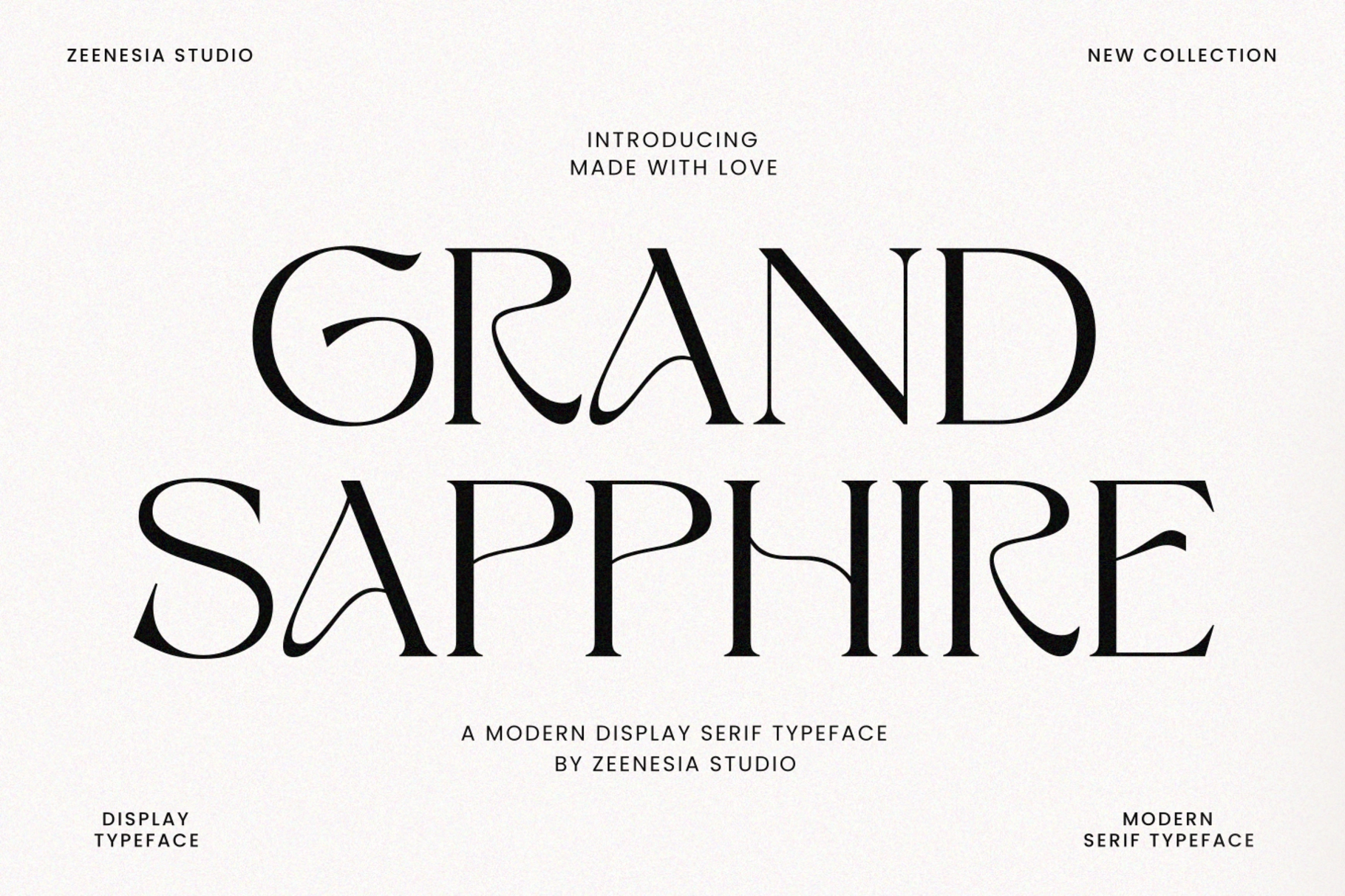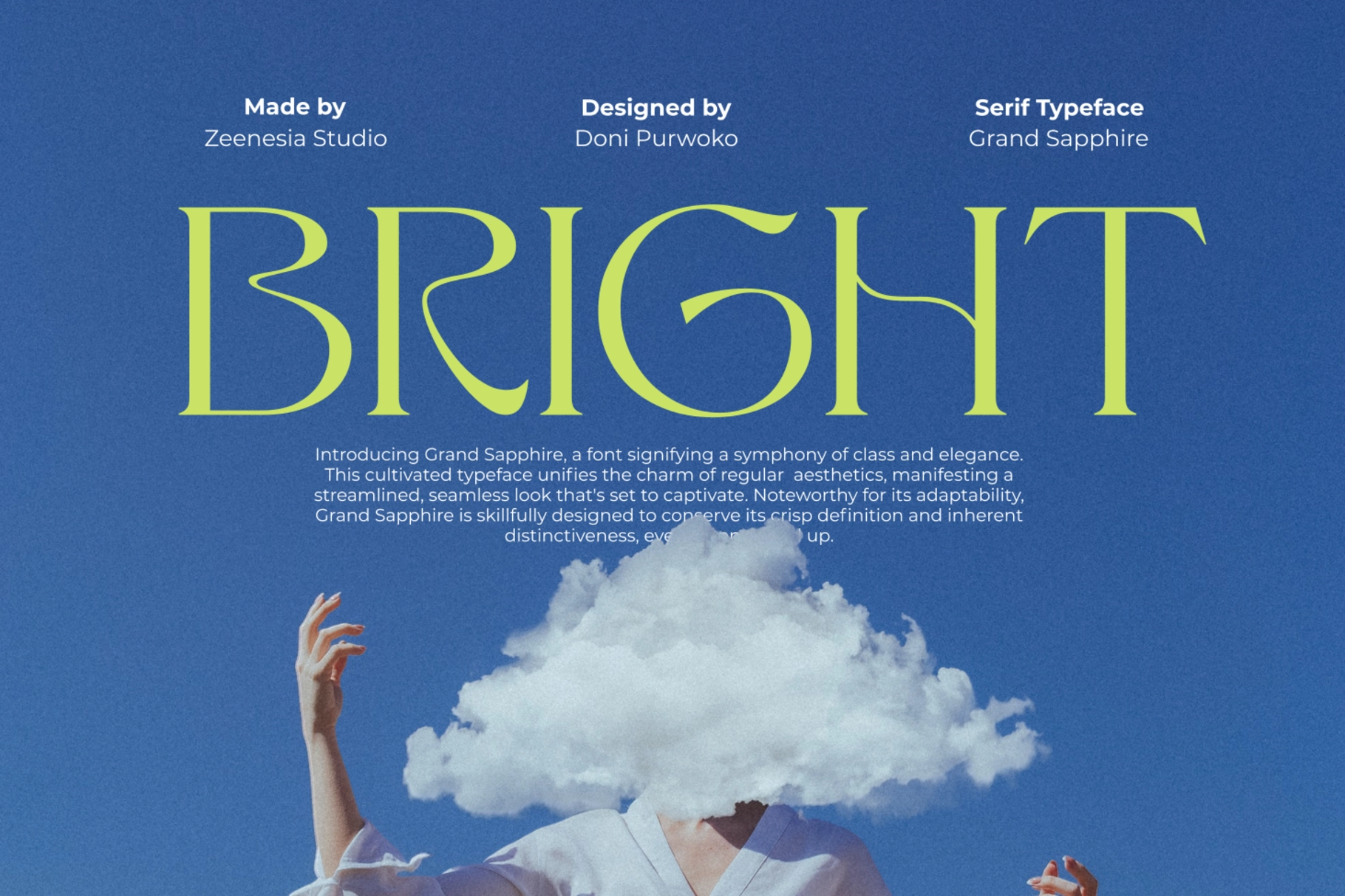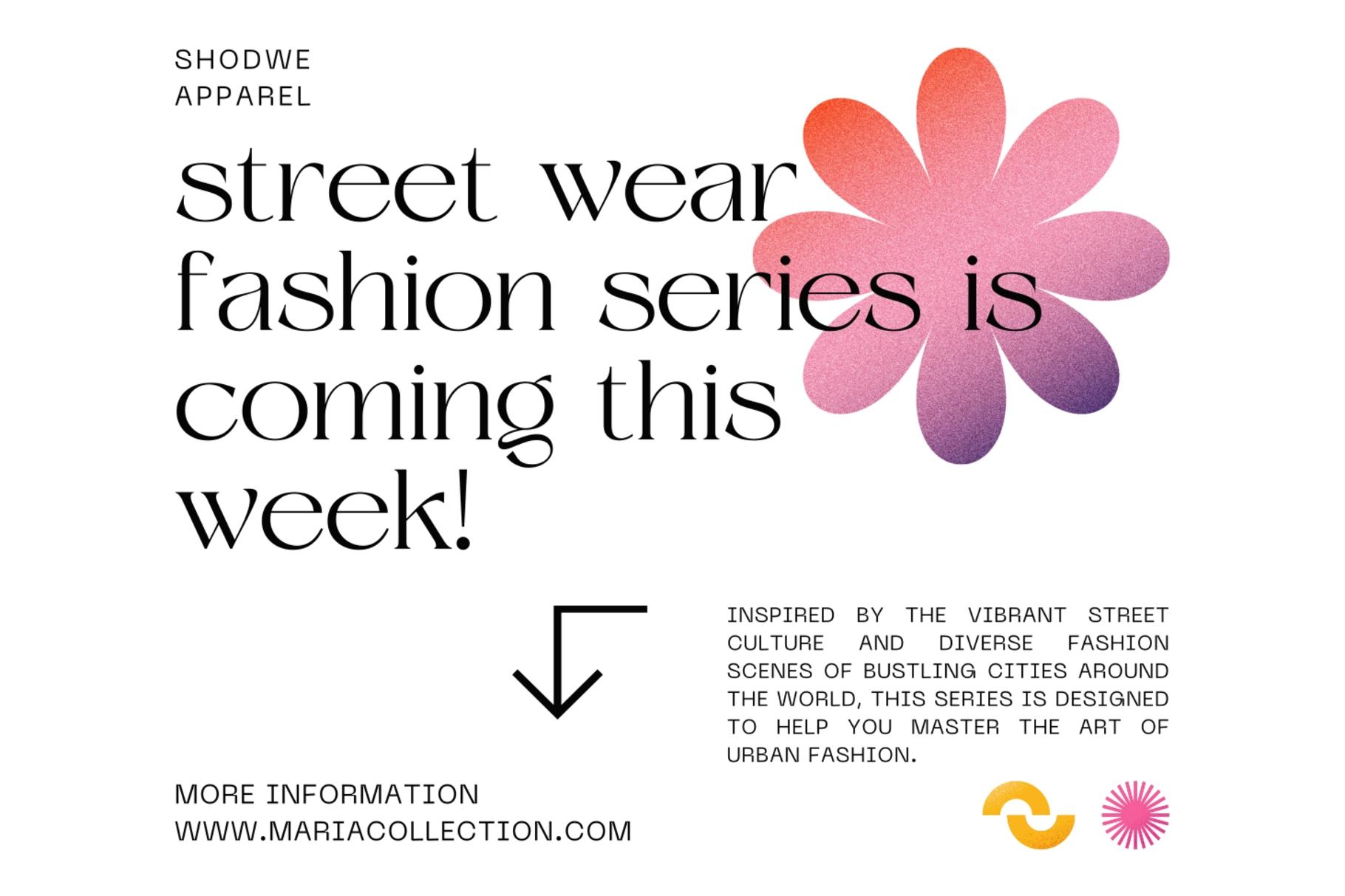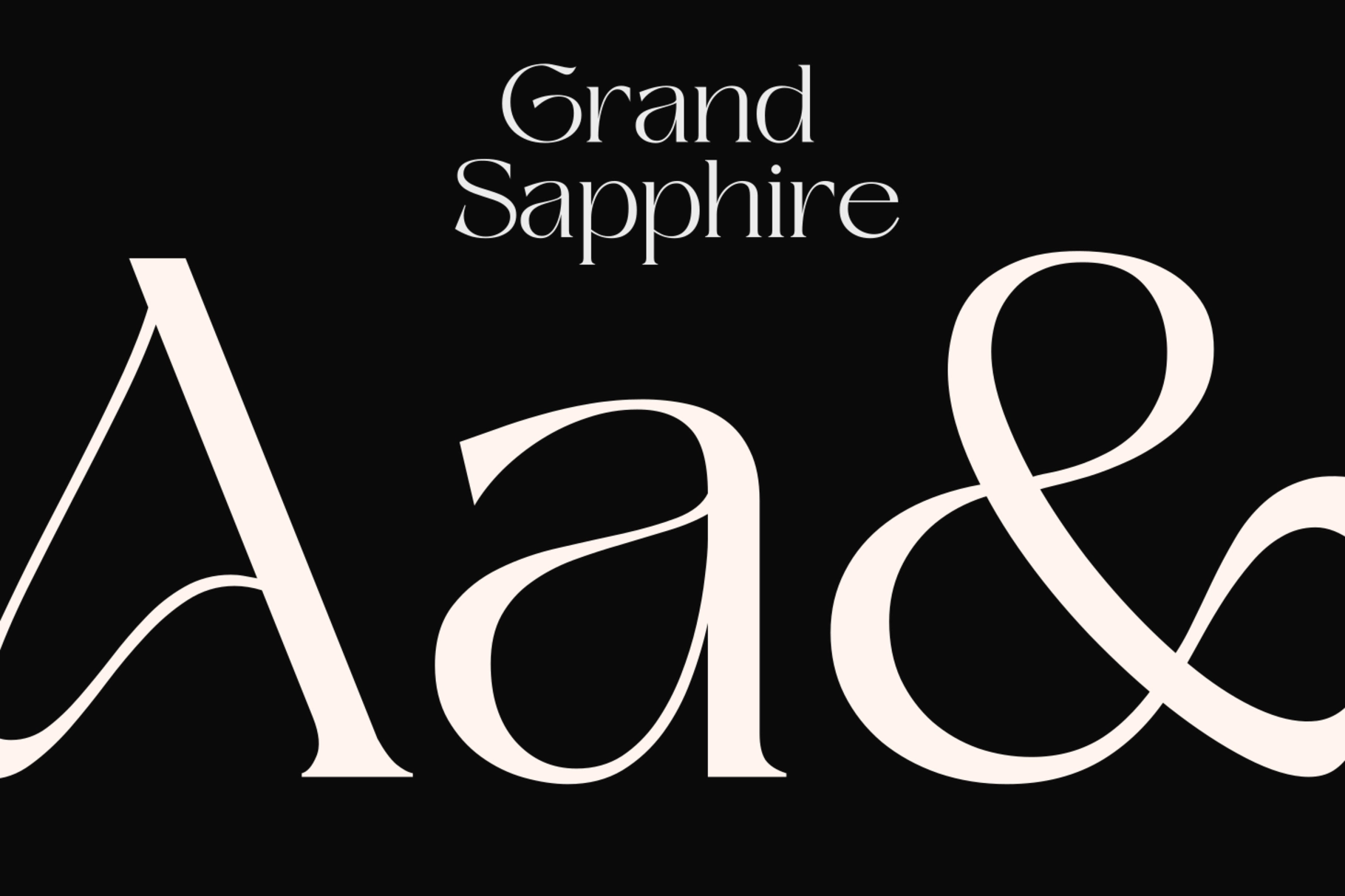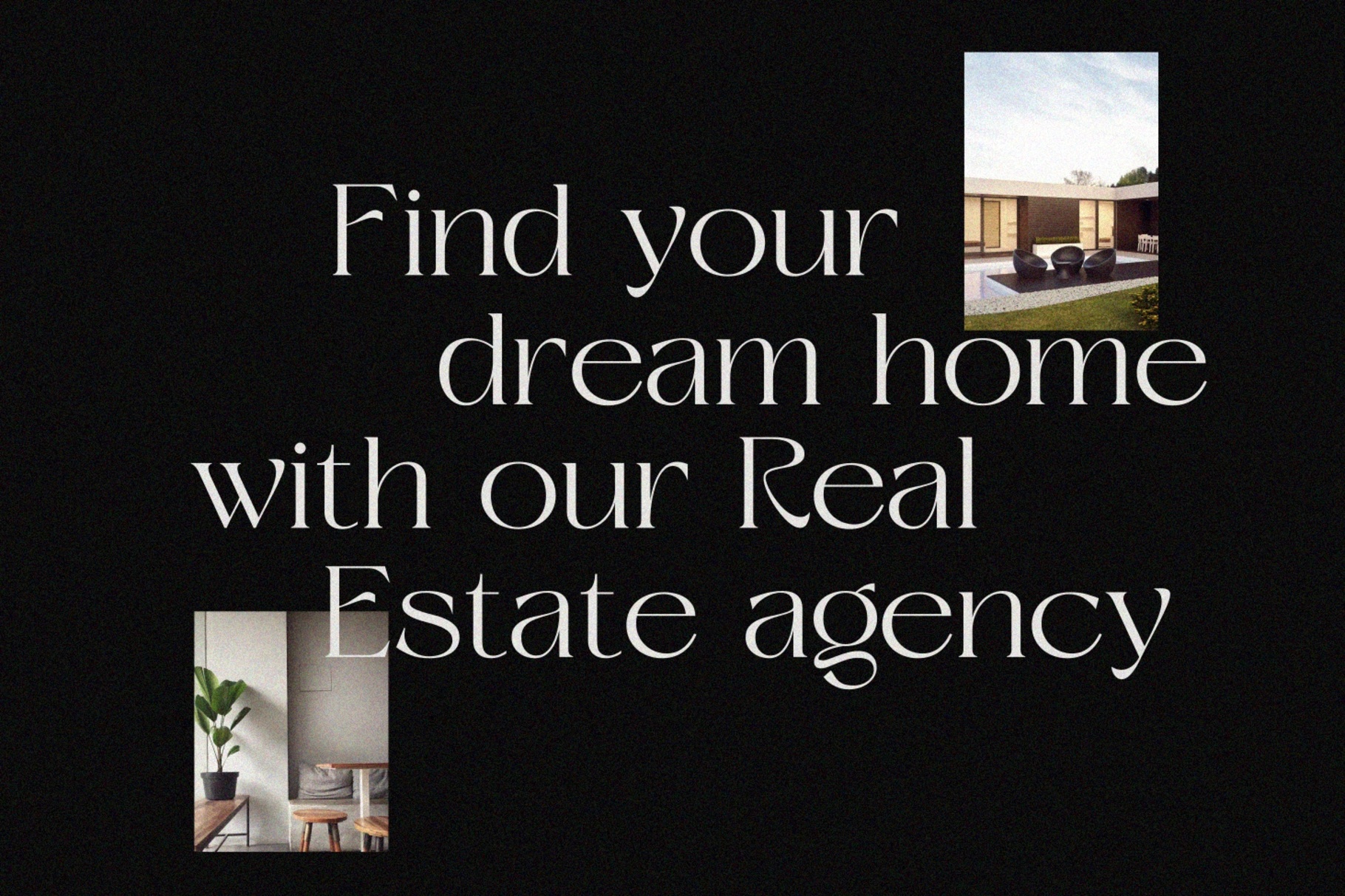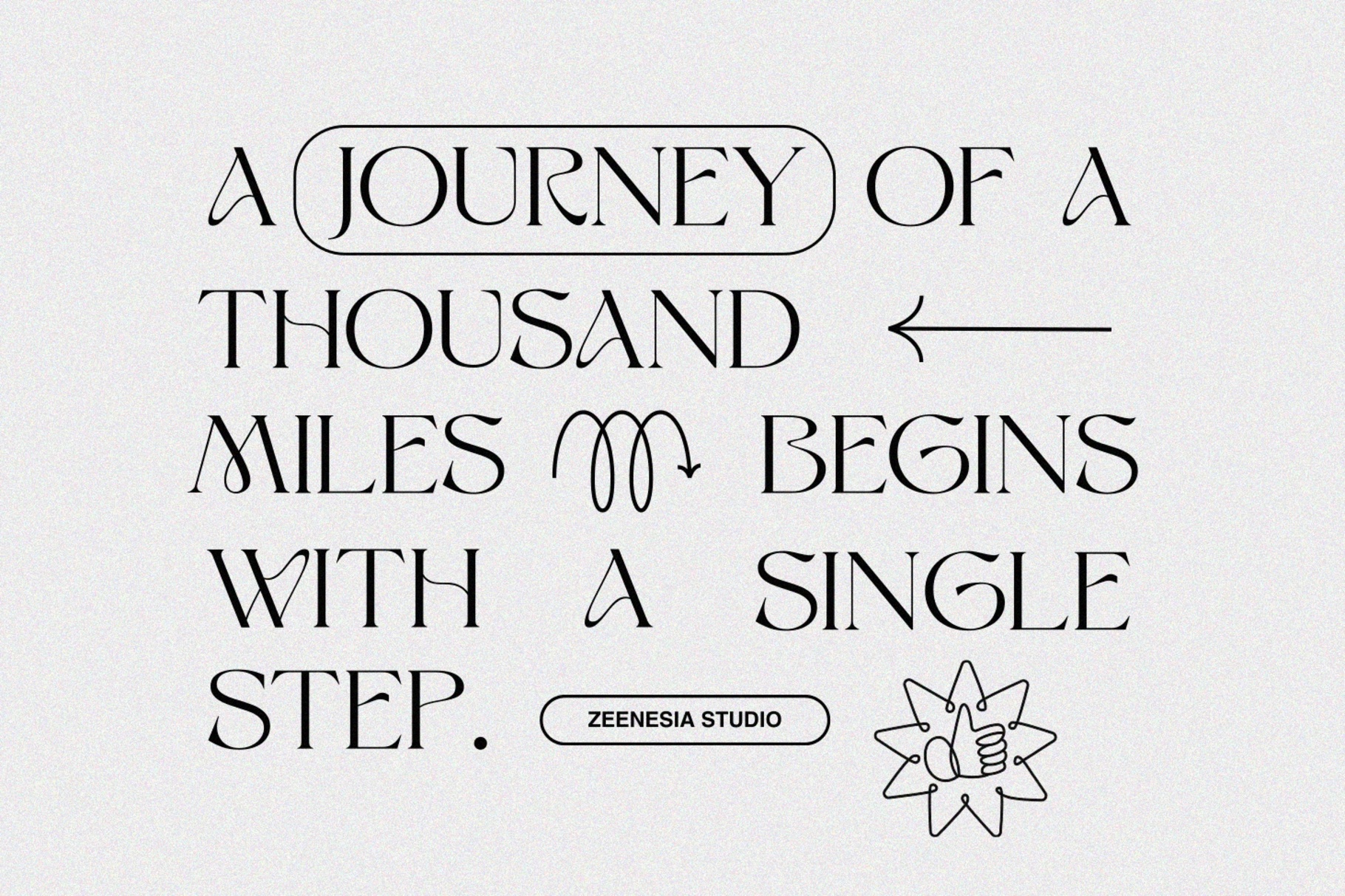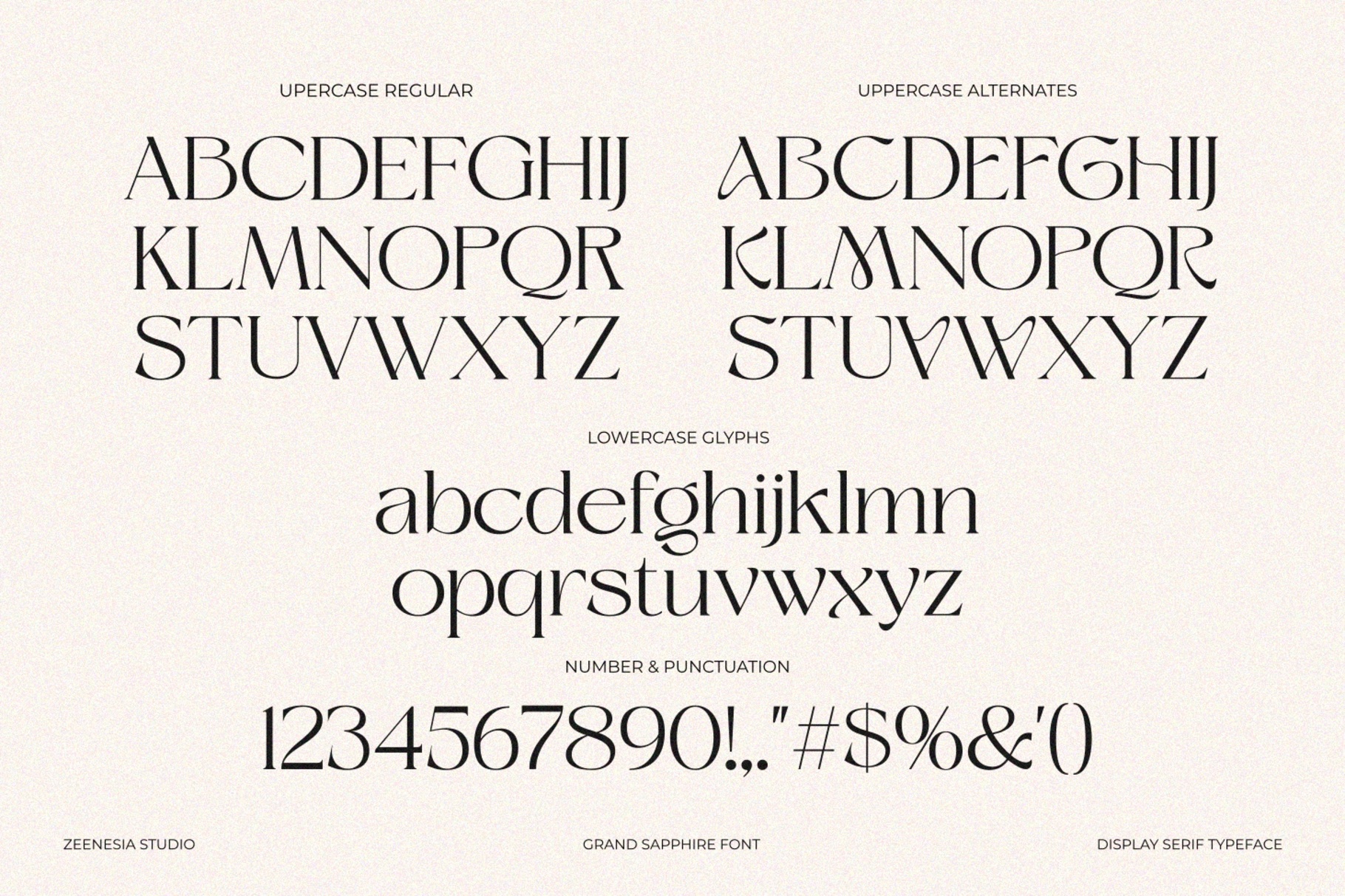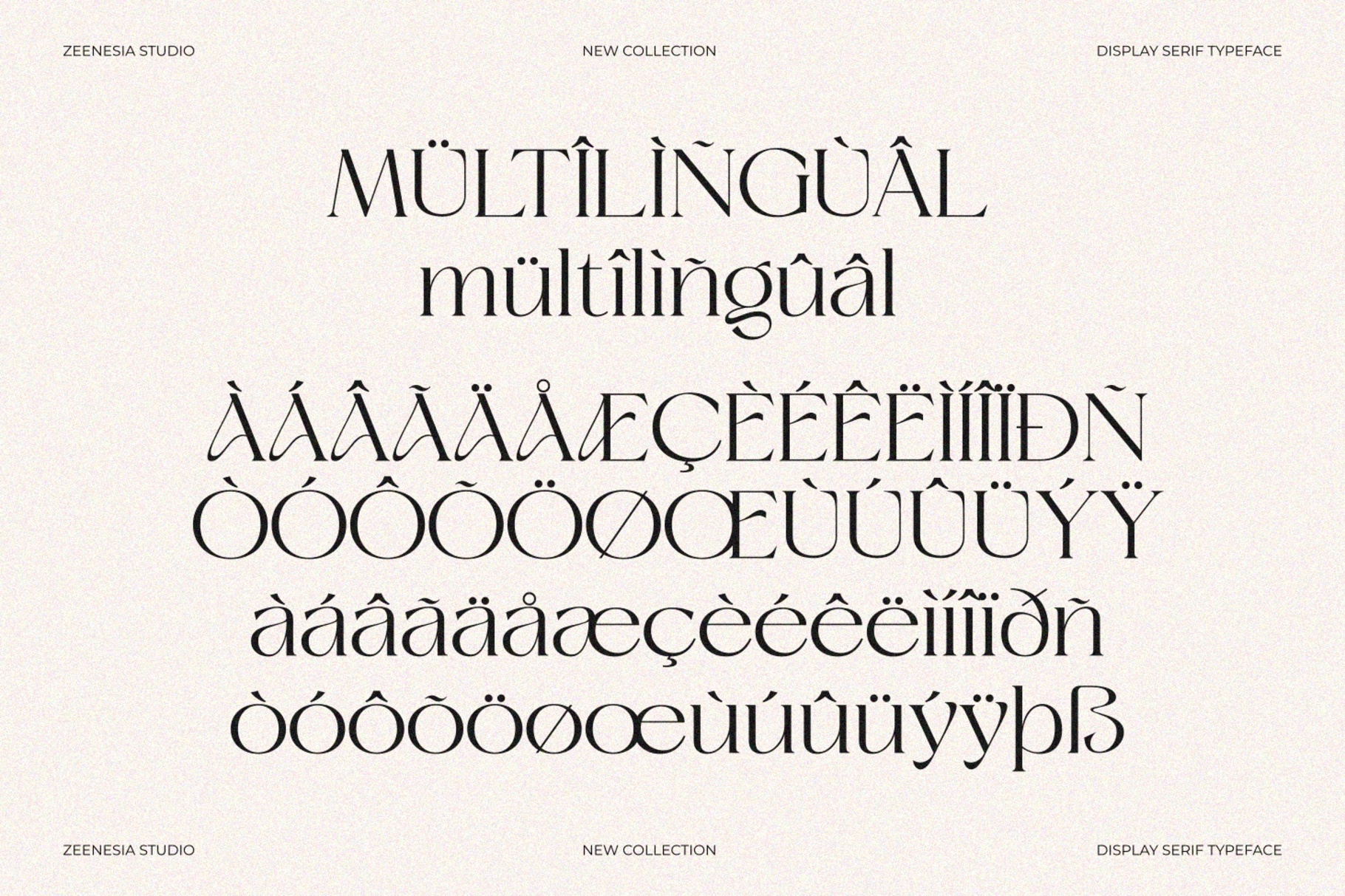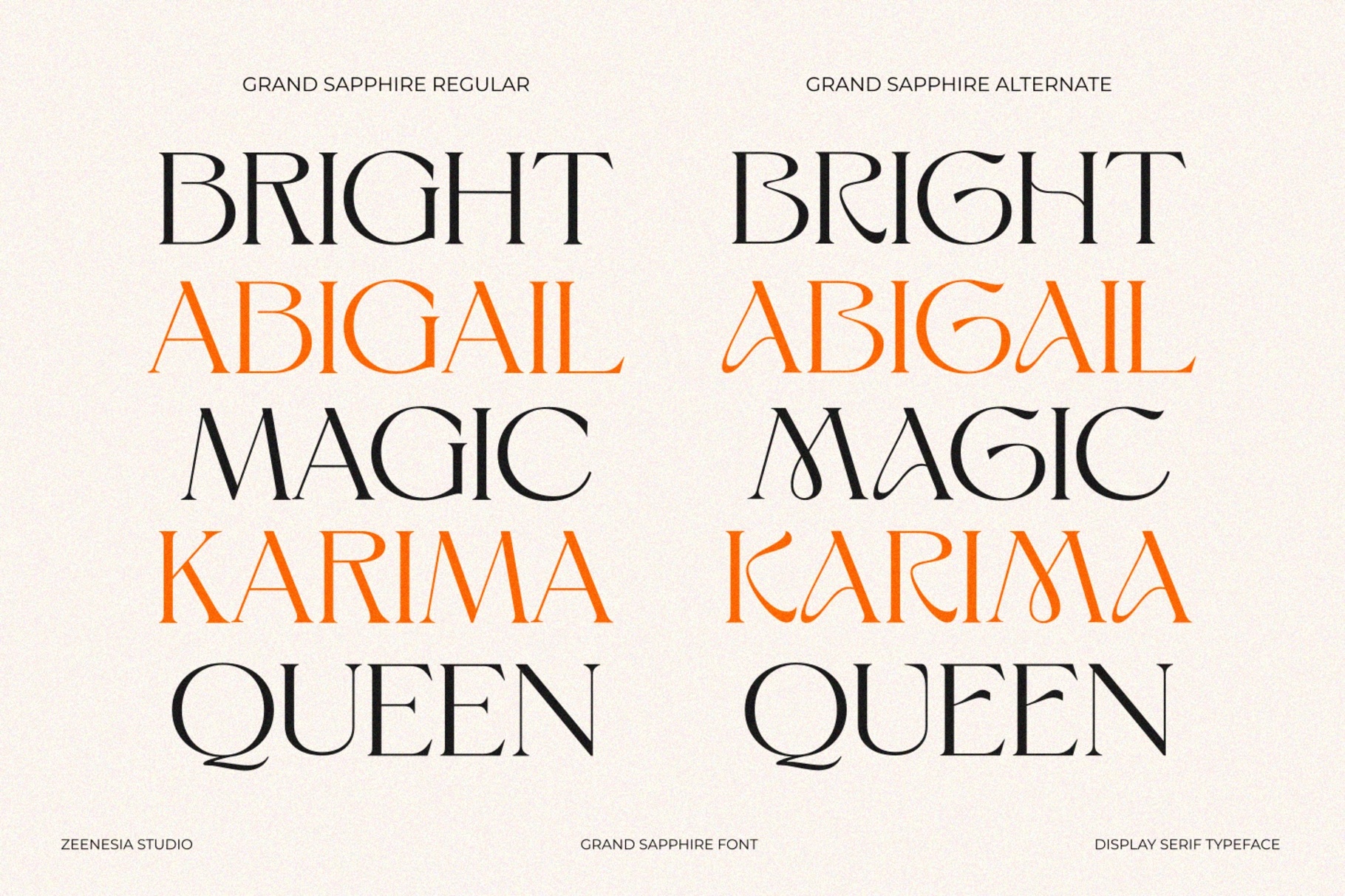
Grand Sapphire — Elegant Display Serif Font
Grand Sapphire draws its uppercase from a single continuous stroke logic, letting certain letter pairs curl into one another the way a monogram would. The alternate uppercase set pushes this further, swapping in looser, more ornamental joins for a display serif that reads closer to a jewelry mark than a headline font.
Grand Sapphire works best set large and short, where the connecting curls have room to show. Use it for luxury branding, editorial mastheads, fashion logos, wedding invitations, packaging labels, and boutique signage.
- 2 styles: Regular, Alternate;
- Uppercase & lowercase;